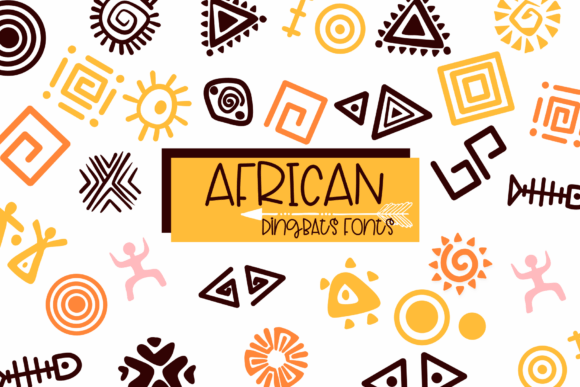
The Power of African Font: Unlocking Creative Possibilities
I’ll never forget the time I was working on a wedding invitation project, trying to find the perfect font to match the client’s elegant yet playful vibe. I had scoured the internet, tried out countless fonts, but nothing seemed quite right. That was until I stumbled upon the African font – a game-changer for my design endeavors! With its unique abstract theme and dingbats style, it instantly elevated my project and exceeded my client’s expectations.
- ✅ Unique and eye-catching design that’s perfect for creative projects
- ✅ Highly versatile and can be used for various design applications, from wedding invitations to logos
- ✅ Easy to read and understand, even at smaller font sizes
- ✅ Supports OpenType features, glyphs, and stylistic alternates for added customization
- ⚠️ Limited character set, which may not be suitable for projects requiring a wide range of characters
- ⚠️ May not work well with certain design styles or themes that require a more traditional or formal look
The Story Behind African Font
African font was designed with the intention of creating a unique and eye-catching dingbats font that would inspire creativity and add a touch of abstract elegance to design projects. The designer’s goal was to craft a font that would be both versatile and highly customizable, making it perfect for a wide range of applications.
Q: What type of projects is African font best suited for?
A: African font is perfect for creative projects such as wedding invitations, DIY crafts, decorations, logos, and many other design applications.
Q: Can I customize African font with OpenType features and glyphs?
A: Yes, African font supports OpenType features, glyphs, and stylistic alternates, allowing you to customize and personalize your design.